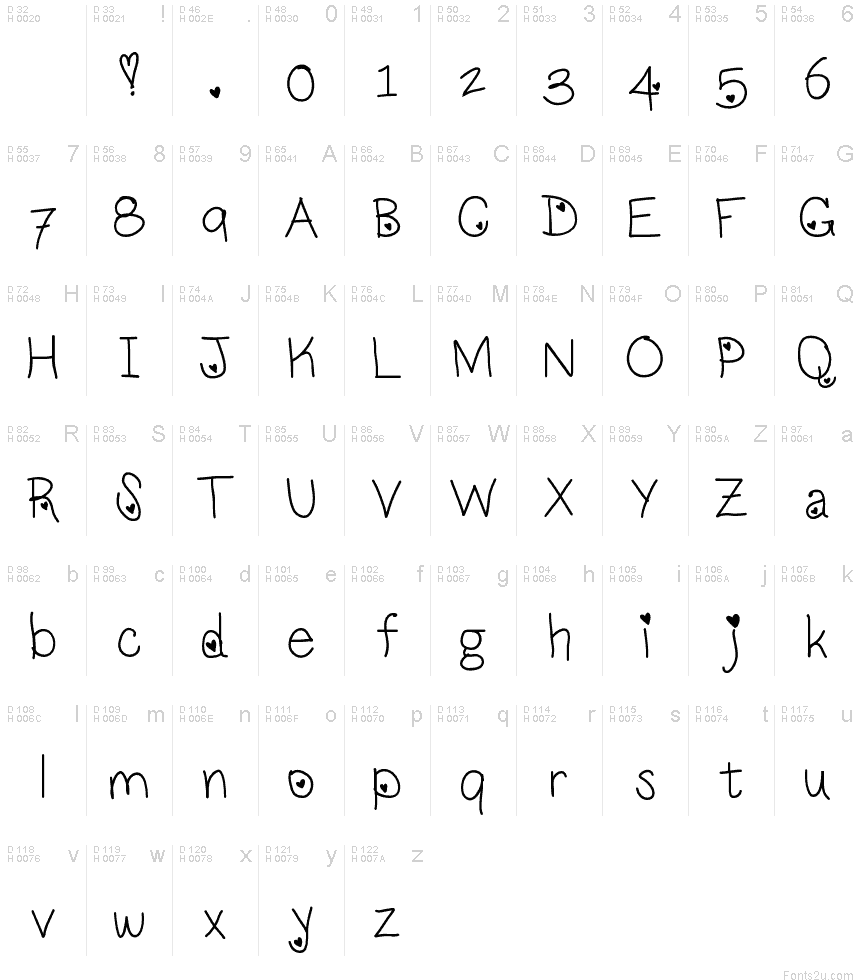
Love Ness by Bythebutterfly.com is a free Valentine's Day handwritten display font with tall, loosely drawn letters and an airy monoline look. Small hearts are tucked into several forms, turning the lettering itself into decoration. The changing heights and gently wavering strokes keep it personal rather than polished.
Wedding stationery and sweet-shop packaging are quite different settings, but the heart details make both feel affectionate and informal. It also suits party invitations and social media graphics aimed at couples, young gift shoppers, or anyone drawn to cheerful handmade romance.
Love Ness is a display font by Bythebutterfly.com. It includes heart details inside and above several letterforms.